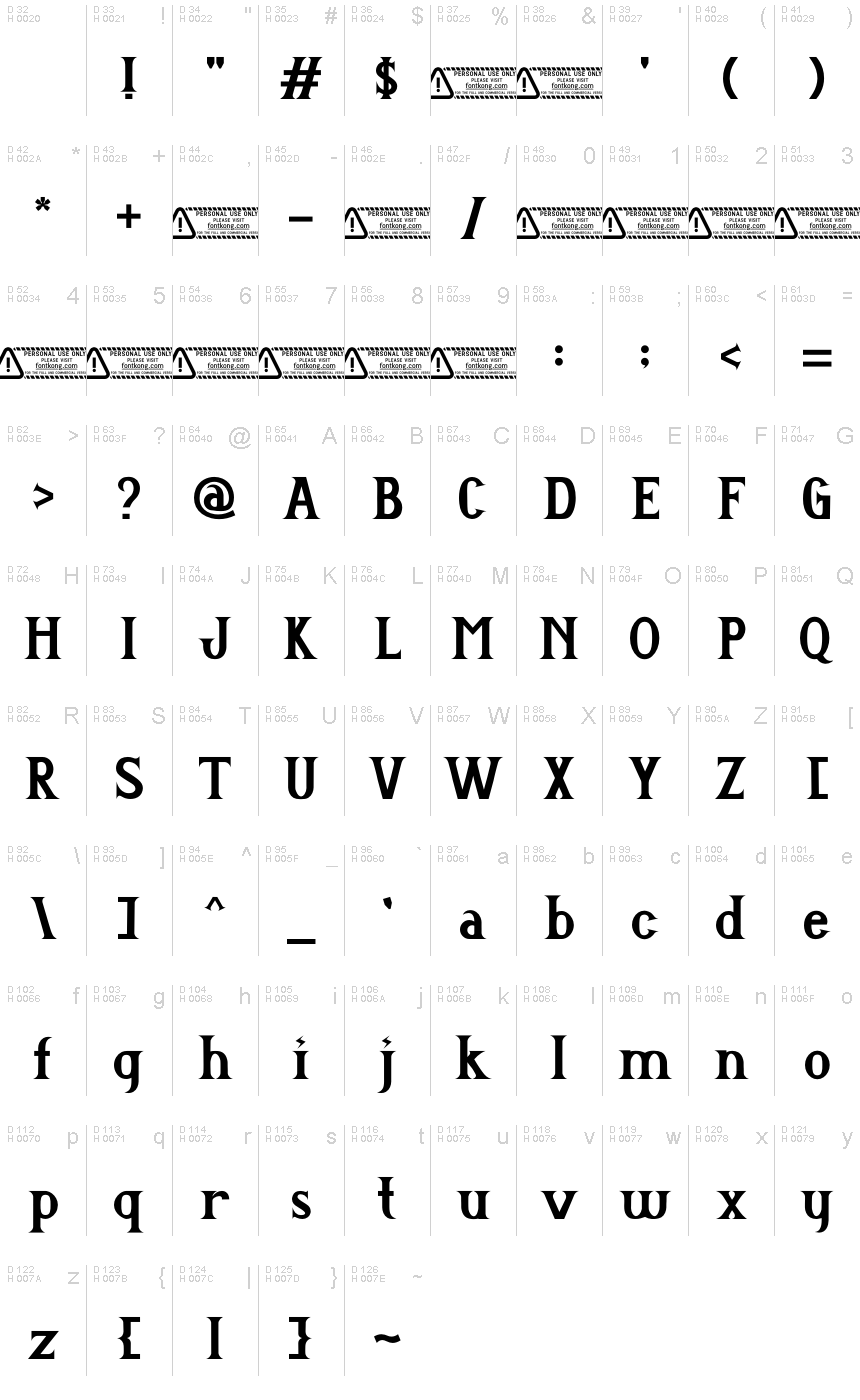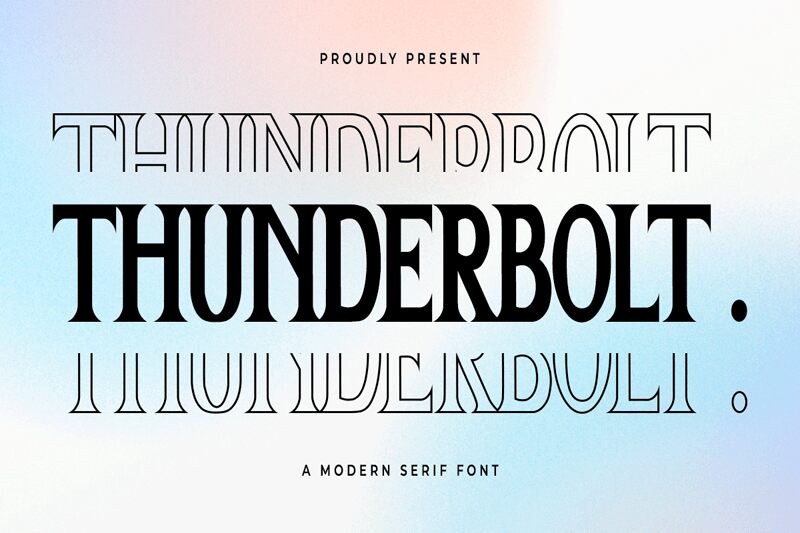
Thunderbolt
Thunderbolt, a gothic masterpiece from the creative minds at Kong Font, strikes with the force of its name. With its bold and sharp contours, this typeface exudes an air of mystery and power that captures the imagination. Its pronounced serifs and dynamic stroke variation create a sense of age-old wisdom fused with contemporary boldness, making it a standout choice for projects that require a touch of drama and sophistication.
The aesthetic appeal of Thunderbolt lies in its finely crafted balance between tradition and innovation. The font's gothic roots are evident in its character design, reminiscent of architectural grandeur from centuries past. Yet, it is undeniably modern in execution, perfect for designers seeking to infuse their work with a sense of enduring strength.
Whether used in branding, editorial design or as a statement piece in poster creation, Thunderbolt's unique style ensures immediate impact. It is especially suited for industries aiming to project authority and elegance—think luxury brands, high-end publications or music that channels an epic scope.